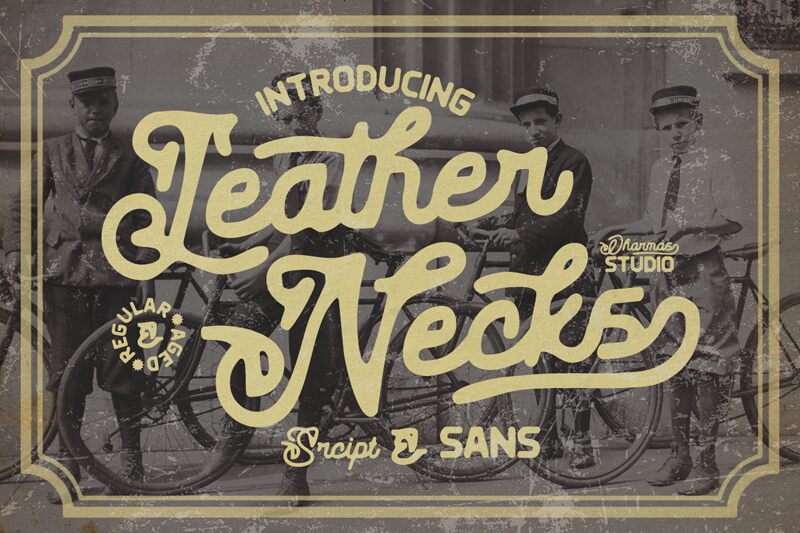
Leather Necks Aged, a vintage script font by Dharmas Studio, exudes an air of timeless authenticity. With its semi-bold weight, this typeface is perfect for projects that aim to evoke a sense of nostalgia and classic charm.
Its carefully crafted letterforms lend themselves beautifully to logo designs, packaging, and branding materials for artisanal products such as handcrafted leather goods or aged spirits. Whether you're creating a retro-inspired website or designing vintage-themed invitations, Leather Necks Aged adds a touch of rustic elegance that will captivate your audience.